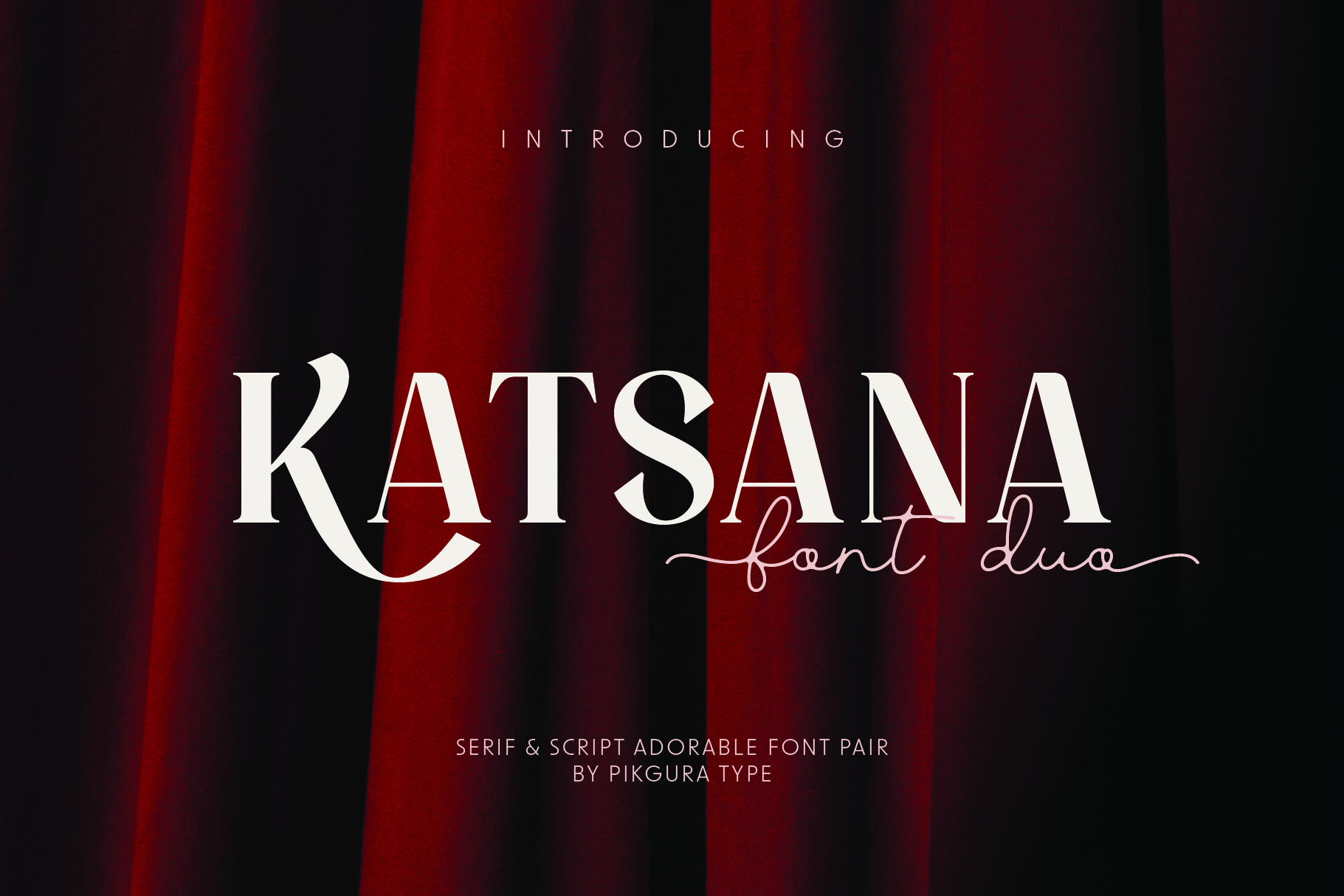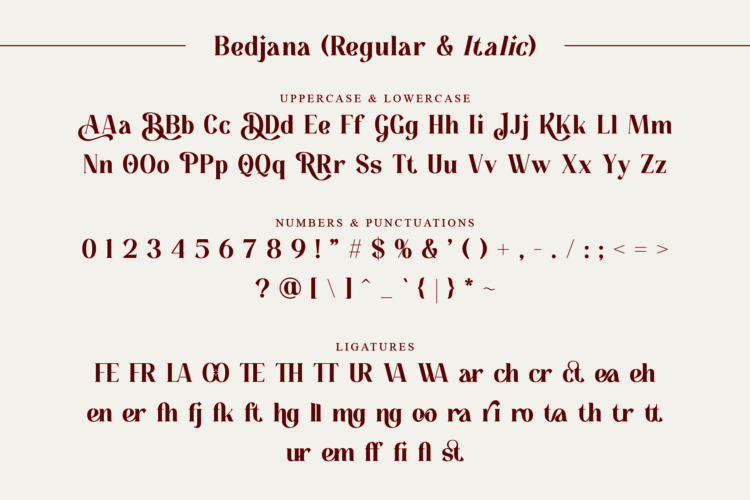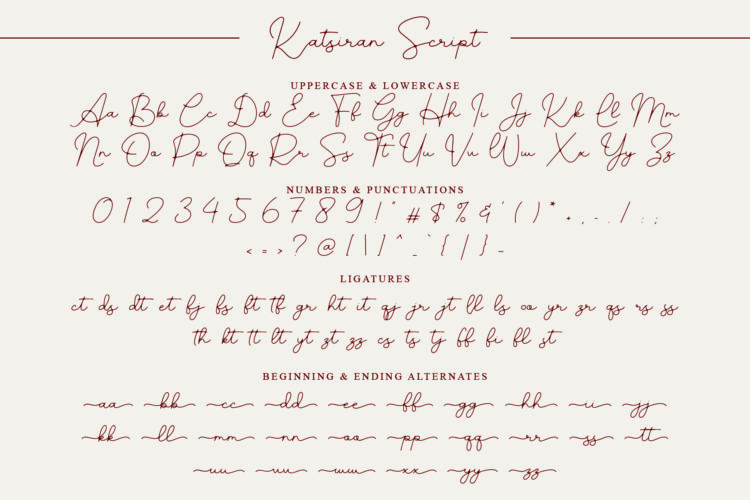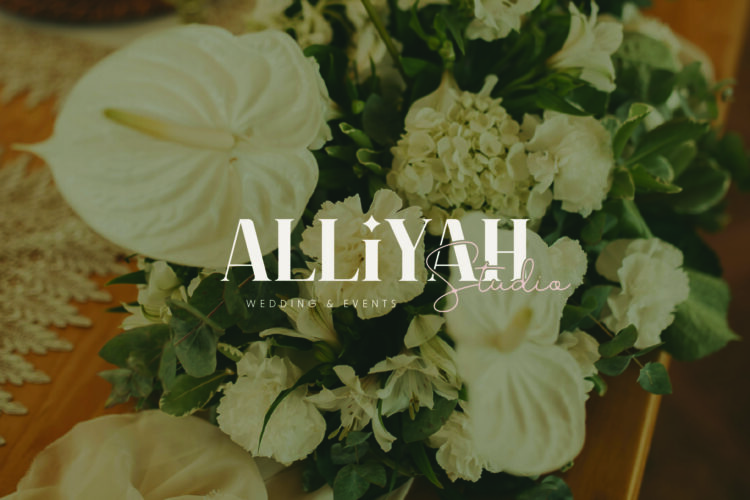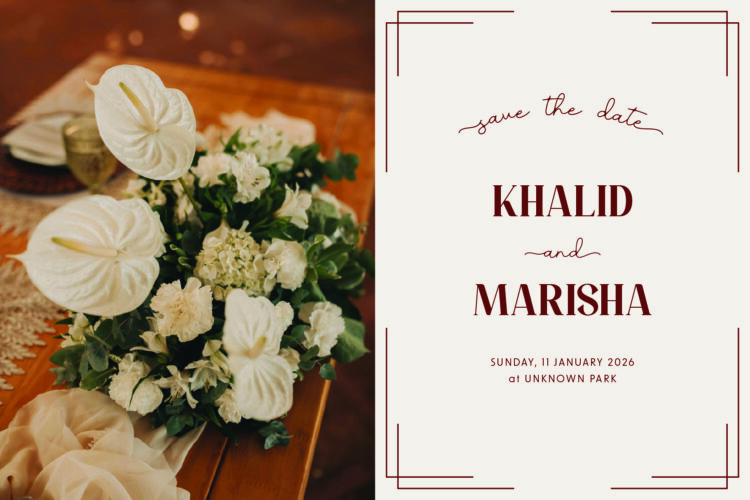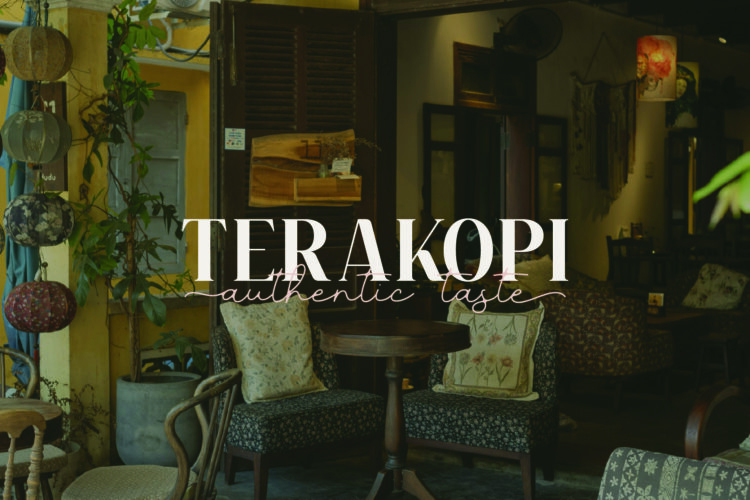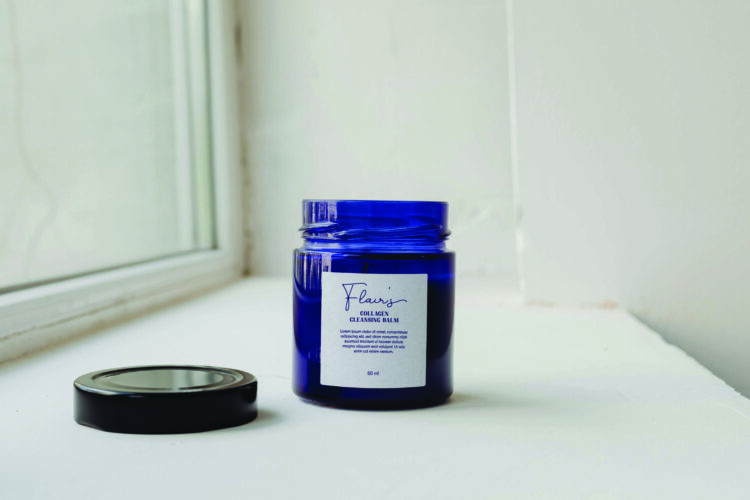
Katsana is a romantic and stylish font pair that blends the bold elegance of a modern serif with the graceful charm of a monoline script. It creates a perfect balance of strength and softness, ideal for premium and romantic designs.
✨ Bedjana – the serif font – is modern, bold, and confident. It features a full alphabet, numbers, basic symbols, ligatures, and alternative characters. Its matching italic adds sophistication and versatility. Bedjana works beautifully for headlines, branding, editorial layouts, and luxury projects.
✨ Katsiran – the script font – is delicate, flowing, and elegant. It comes with a full alphabet, numbers, basic symbols, ligatures, and alternate lowercase letters for stylish beginnings and endings. Katsiran adds a personal, romantic touch to logos, signatures, wedding designs, invitations, and feminine branding.
Together, Katsana combines these complementary styles to create harmony and contrast in every project. Your purchase includes OTF, TTF, and WOFF files, ready for print, digital, and web use.